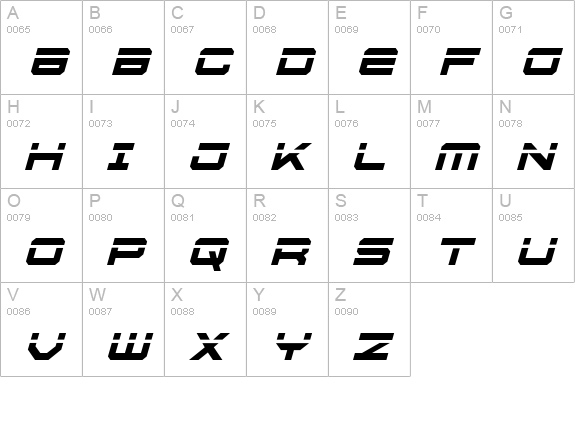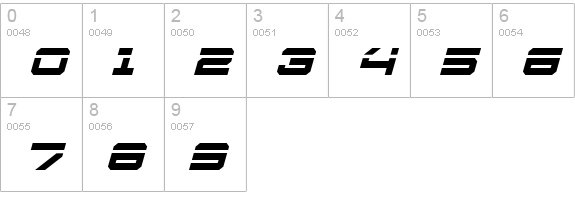
U.S.S. Dallas Laser Italic is a distinctive, italic variant in the U.S.S. typeface family \xE2\x80\x94 well suited to design and typography projects.
Introducing the U.S.S. Dallas Laser Italic font - a stunning display typeface that exudes futuristic vibes and sleek sophistication. Designed with precision and attention to detail, this font features sharp edges and a laser-like appearance that commands attention. The U.S.S. Dallas Laser Italic font is perfect for projects that require a modern and edgy touch, making it ideal for branding, posters, headlines, and more. Best of all, this striking font is available for free download at FontsMarket.com, allowing you to elevate your designs without breaking the bank. Don't miss out on the opportunity to add the U.S.S. Dallas Laser Italic font to your collection and take your projects to the next level with its unique and eye-catching aesthetic.